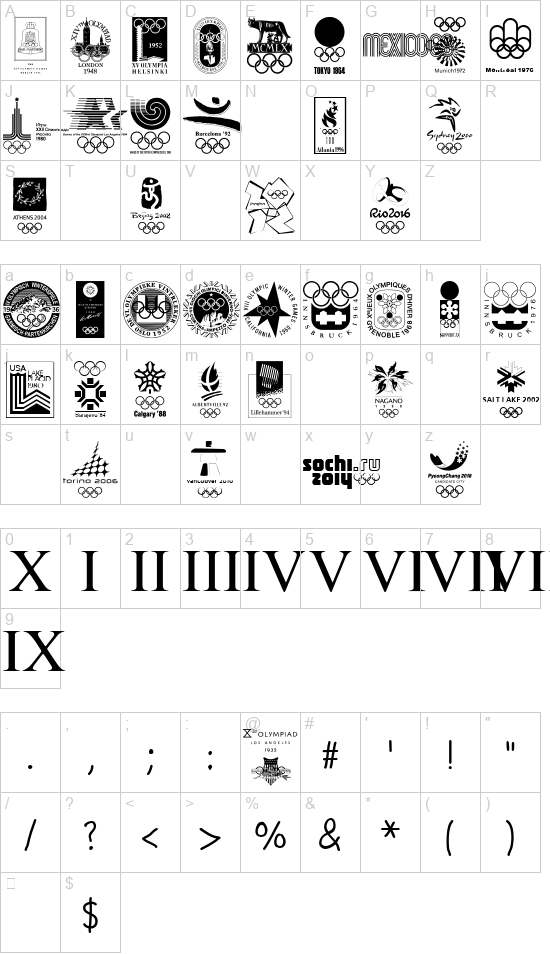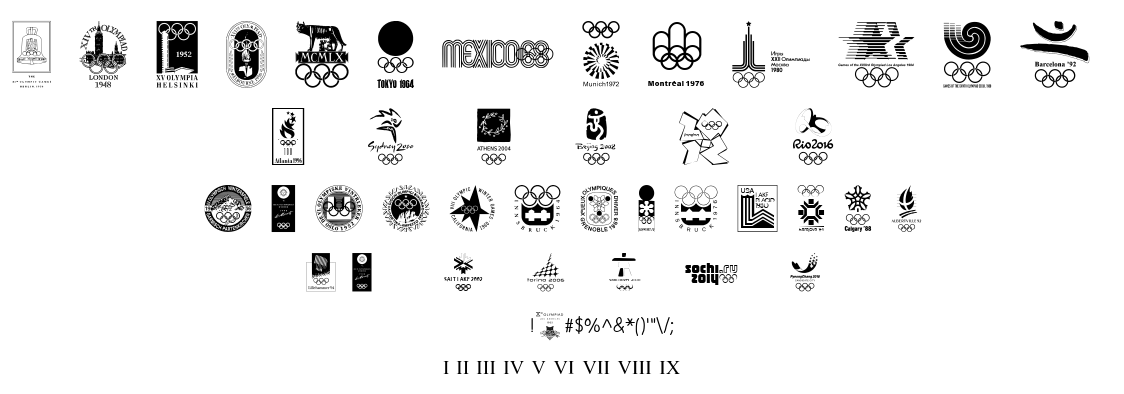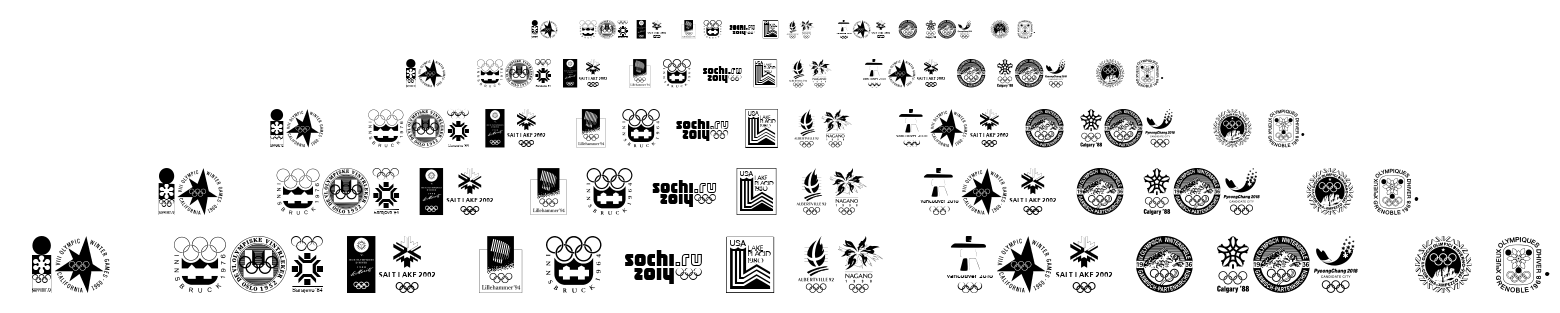
Olympiad XXX font.
In the UK we will celebrate the 30th Summer Olympic Games this font has been created to help celebrate both the Summer and Winter Games from 1932-2012 and beyond, there were no great logos before then so from 1896 Summer and 1932 Winter, in 1992 the Games split to run on separate four-year cycles in alternating even-numbered years, also in 1916, 1940 and 1944 the War prevented the four yearly rota.